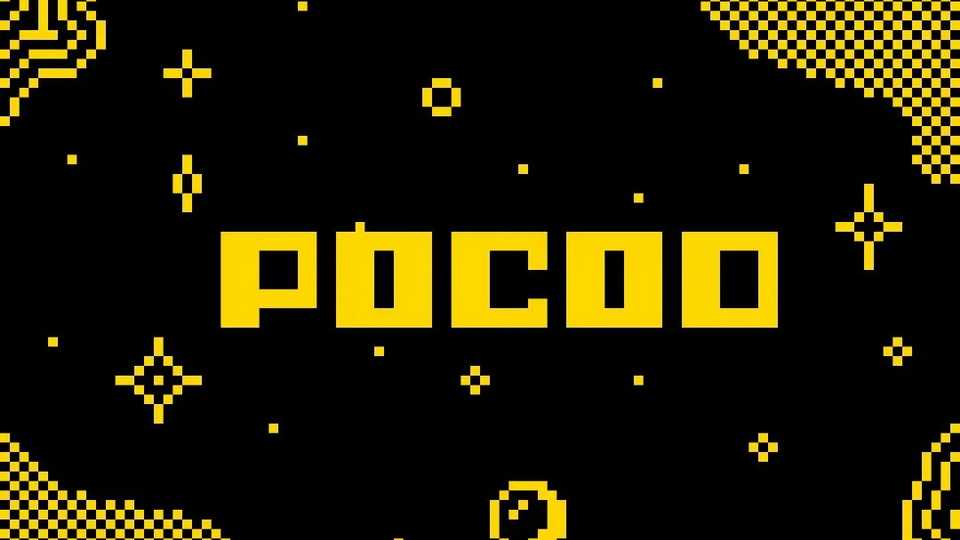
Download Pocod font, a pixel/bitmap typeface inspired by the low-res bitmap lettering. Pocod font is perfect for pixel art, games, icons, logos, posters, and display.
Designer: デズハン Dezuhan